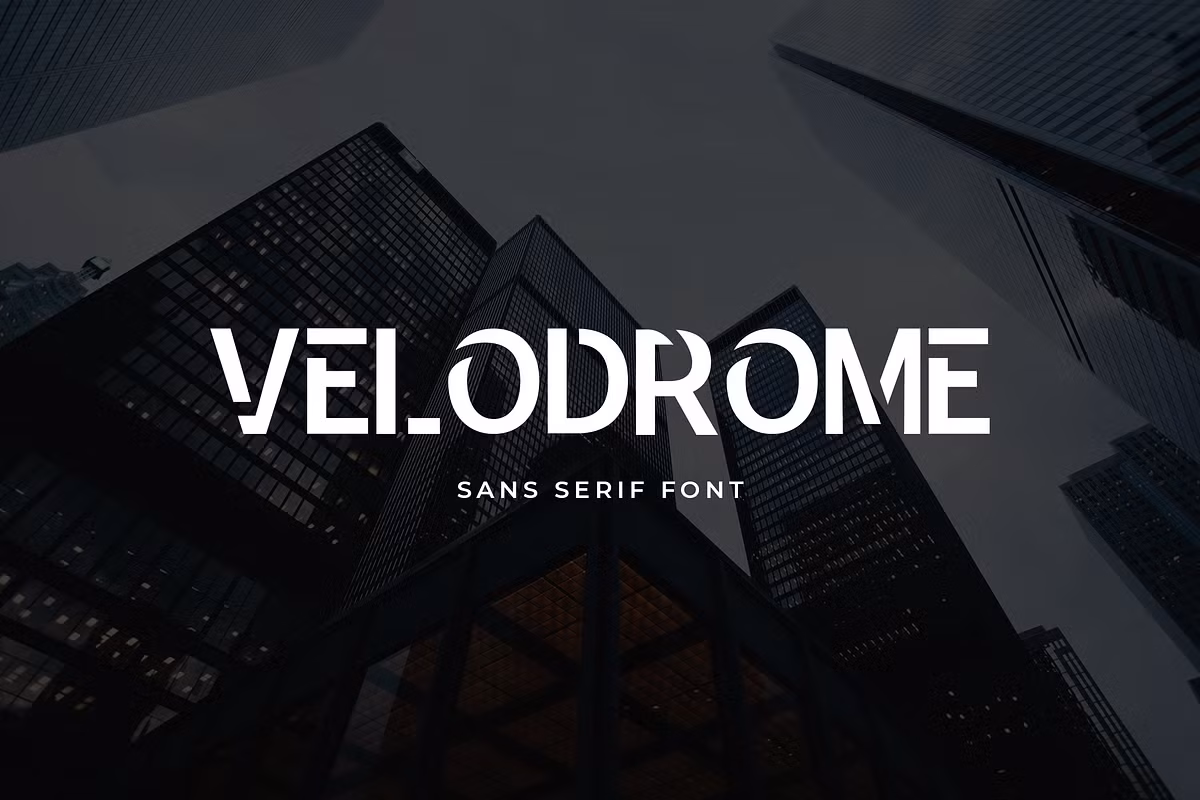
Velodrome Display Font Free Download
Velodrome Display Font Free Download is a dynamic and sporty typeface built for bold headlines, posters, branding, and merchandise. With its strong geometric shapes and fast-paced aesthetic, it’s perfect for projects that demand attention and energy. Please note that you must purchase this font for commercial use, but it is available as a free download for testing purposes. Whether you're designing for sports, lifestyle, or edgy digital content, Velodrome Display Font Free Download brings power, motion, and modern flair to your typography toolbox.